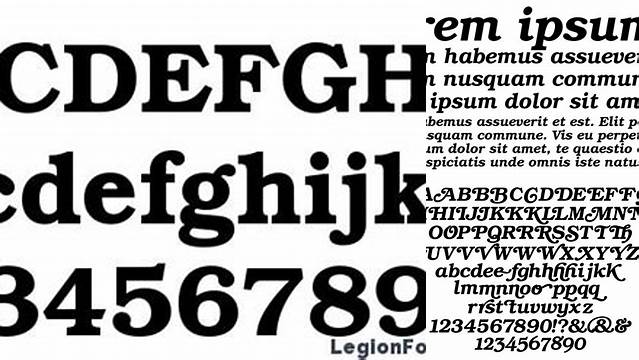
Are you on the hunt for a font that blends classic elegance with modern readability? Look no further than the ITC Bookman Std Demi font family! It's a versatile typeface that has stood the test of time, and for good reason. In this comprehensive guide, we'll dive deep into everything you need to know about this beloved font, including its history, features, how to download it for free, and how to use it effectively in your projects.
What is ITC Bookman Std Demi? Unveiling the Font's Essence
Let's start with the basics, shall we? The ITC Bookman Std Demi font family is a member of the larger Bookman family, originally designed by Alexander Phemister in 1858. It has been through many transformations and adaptations. The 'ITC' in the name stands for International Typeface Corporation, the company responsible for its modern version. The Demi style is a bold, semi-bold weight within the Bookman family, sitting right in between the regular and bold weights. This makes it incredibly useful for a wide range of applications. ITC Bookman Std Demi is known for its friendly, approachable, and easily readable design. Its rounded serifs and generous proportions give it a warm and inviting feel, making it a favorite for both print and digital media. This specific font family excels where legibility is paramount while still maintaining a touch of sophistication. Imagine crafting a project that needs to be both eye-catching and reader-friendly; ITC Bookman Std Demi is an excellent choice. It’s the kind of font that whispers, "Read me," rather than shouts.
The font's historical roots add a layer of charm. Think of it as a vintage wine that has been refined over time. It's a testament to enduring design principles, offering a sense of nostalgia while remaining fresh and modern. The design's adaptability is one of its strongest suits. ITC Bookman Std Demi is not just a pretty face; it's also incredibly practical. It performs well in different sizes and across various mediums, from headings to body text. This flexibility makes it a go-to choice for designers aiming to create cohesive and visually appealing projects. Whether you are designing a website, creating marketing materials, or working on a personal project, this font has you covered. The bold weight, in particular, commands attention without being overly aggressive. Its balance of strength and approachability makes it a fantastic option for grabbing the viewer’s attention while maintaining a friendly tone. The careful balance and harmonious design make it both useful and beautiful. It's the kind of font that can elevate your projects, making them look professional and engaging. The font is perfect for any project that is meant to draw the readers in. The best thing about this font is that it fits many design applications perfectly.
Key Features of ITC Bookman Std Demi
Alright, let’s get into what makes ITC Bookman Std Demi so special. The key features are more than just aesthetics; they’re about functionality and how they impact your designs. This font family has several distinctive characteristics, including the bold weights which make it very recognizable.
- Legibility: One of the foremost strengths of ITC Bookman Std Demi is its excellent legibility. The font's clear letterforms and generous spacing make it easy to read, even in smaller sizes. This is especially important when designing for body text or long blocks of content, where readability is crucial.
- Warm and Friendly Appearance: The rounded serifs and overall design give the font a warm and friendly appearance. It creates a welcoming impression, making it suitable for a wide range of applications, especially those aimed at engaging a broad audience.
- Versatility: ITC Bookman Std Demi is incredibly versatile. It works well in various settings, from headings and subheadings to body text and captions. This adaptability makes it a valuable asset for any designer looking for a font that can handle different design needs.
- Bold Weight: The Demi weight is a standout feature, providing a strong visual impact without being overwhelming. It is ideal for emphasizing text and drawing attention to key elements in your designs. This is the weight that often gets all the attention because of its readability and uniqueness.
- Wide Range of Applications: ITC Bookman Std Demi is suitable for a variety of projects, including print materials (books, magazines, brochures), digital media (websites, e-books), and branding (logos, packaging). Its adaptability ensures that it can seamlessly integrate into diverse design contexts.
Its distinctive characteristics are the reason why it has been used for so many years. It is a very readable font that will captivate the readers. This versatility has made it popular for both print and digital projects. This is why you can see it everywhere. It's a safe bet for any design.
Conclusion: Why ITC Bookman Std Demi Remains a Top Choice
In a world saturated with fonts, ITC Bookman Std Demi stands out as a reliable, versatile, and aesthetically pleasing choice. Its timeless design, excellent readability, and wide range of applications make it a go-to font for designers of all levels. Whether you're a seasoned professional or a beginner, understanding the nuances of ITC Bookman Std Demi can significantly enhance your design projects. So go ahead, download it (following the guidelines, of course), experiment with it, and experience the enduring appeal of this classic font family.